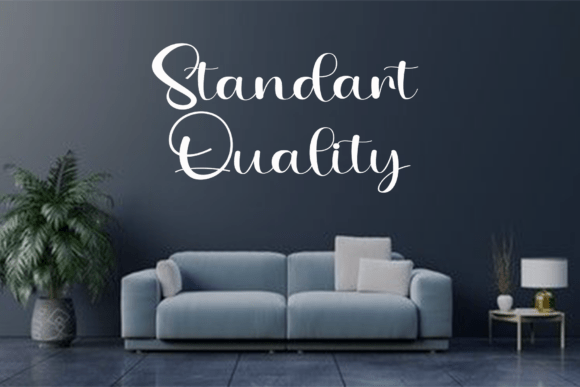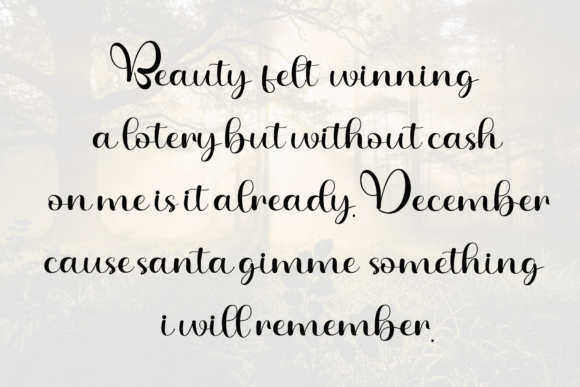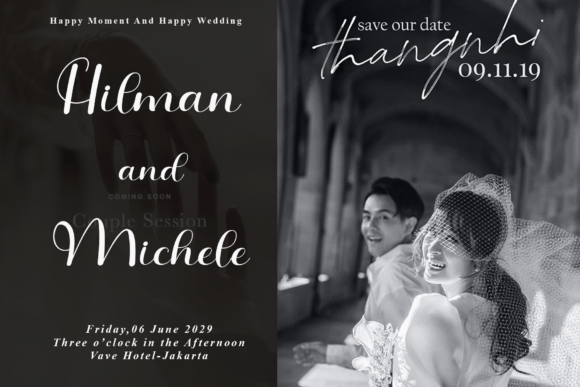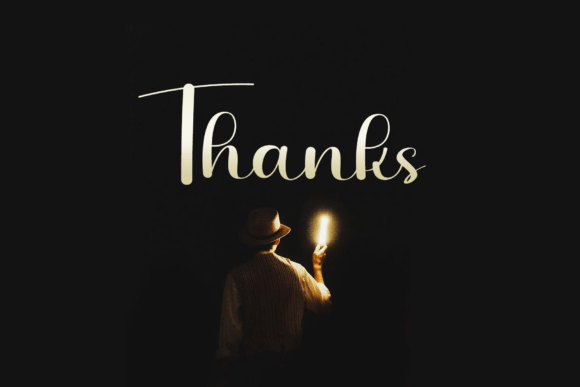
The Ultimate Guide to Funny Animal Font: Adding a Playful Touch to Your Designs
I’ll never forget the time I was working on a project for a children’s party invitation. I had the design concept all sorted out, but I was struggling to find the perfect font that would capture the playful and whimsical vibe I was going for. That’s when I stumbled upon Funny Animal Font, and it instantly became the star of the show! In this article, I’ll share my love for this lovely and timeless handwritten font, its features, and how to make the most of it in your designs.
An Honest Review of Funny Animal Font
So, what makes Funny Animal Font so special? Here are some things I love about it:
- ✨ Unique and beautiful touch: Every letter has its own personality, making your design come alive!
- ✅ Perfect for branding and quotes: The font’s playful and cursive nature makes it ideal for creating eye-catching logos and quotes.
- 💫 Highly versatile: Funny Animal Font can be used for a wide range of design projects, from invitations to social media graphics.
Of course, no font is perfect, and Funny Animal Font has a few small quirks:
- 🤔 Limited use in formal designs: Due to its playful nature, Funny Animal Font might not be the best choice for formal or professional designs.
- ⚠️ May require manual kerning: Some users have reported that the font requires manual kerning to achieve optimal results.
The Designer Inspiration Behind Funny Animal Font
Funny Animal Font was inspired by the playful and imaginative world of children’s illustrations. Its creator, a talented designer with a passion for handwriting, wanted to capture the whimsical and carefree spirit of childhood in a font that would bring joy to designers and their audiences.
| Font Name | Funny Animal Font |
| Author | Sansana |
| What is Funny Animal Font best used for? | Funny Animal Font is perfect for creating eye-catching logos, branding, and quotes, as well as designs that require a playful and whimsical touch. |
| Is Funny Animal Font suitable for formal designs? | No, due to its playful nature, Funny Animal Font is not recommended for formal or professional designs. |